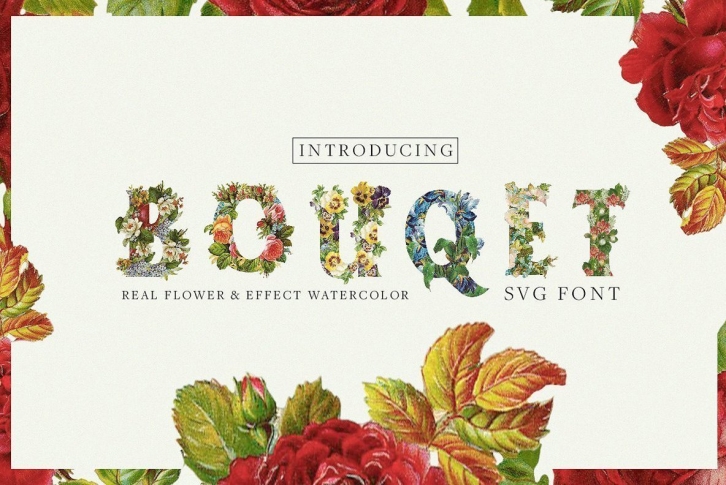
Bouquet Flower & Watercolor (SVG Font) is a unique design that works in full color, designed for Adobe Photoshop use. In order to use in full color, you have to use this item in Photoshop CC 2017, for older versions you will have to use the layered psd file provided (not a working font).